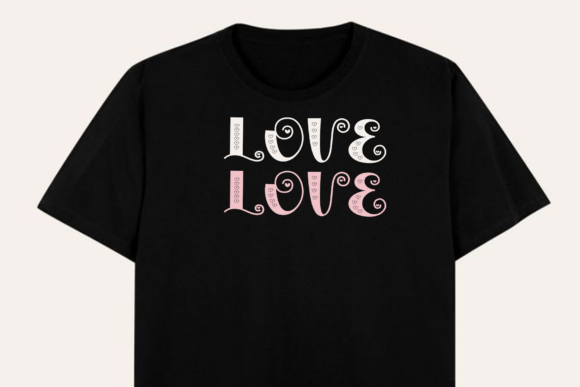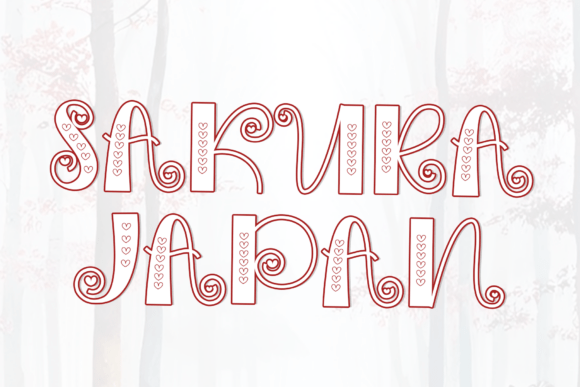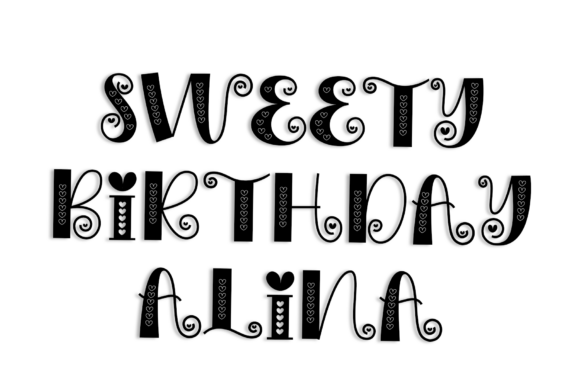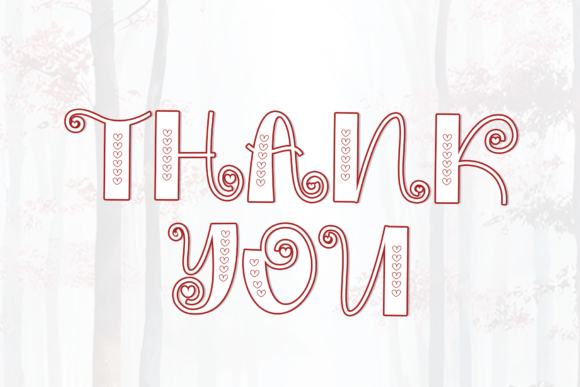
Introduction to Brich Library Font
Brich Library is a lovely and timeless decorative font.
It is the best choice for creating eye-catching logos, branding, and quotes Every letter has a unique and beautiful touch, which will make your design come alive.
Brich Library Font offers exceptional quality and versatility, making it a valuable addition to your design toolkit. Whether you’re creating for personal projects or commercial use, Brich Library Font delivers professional results.